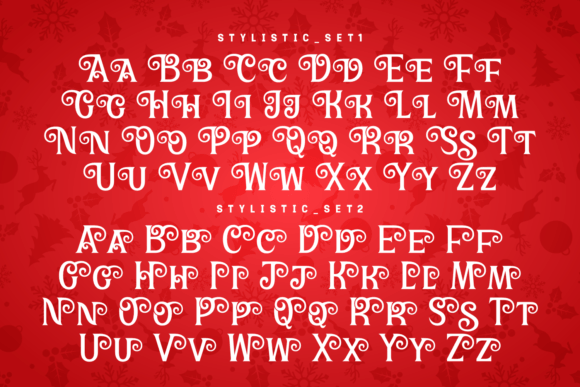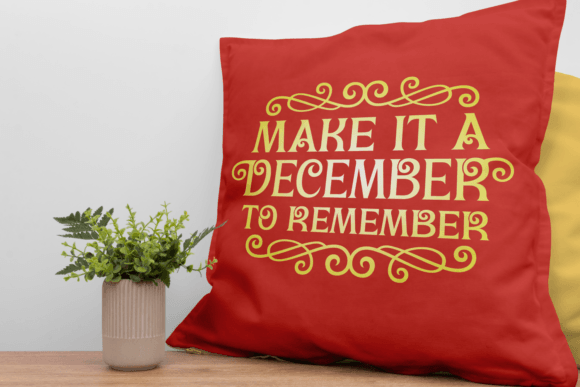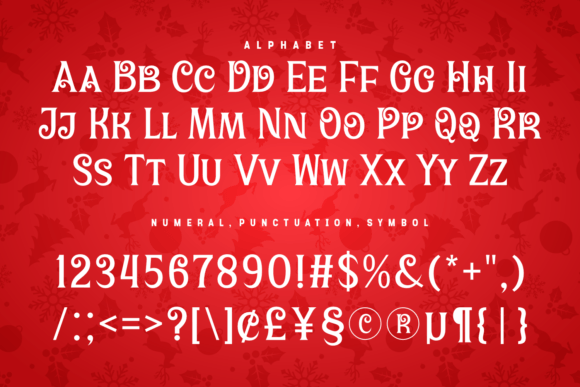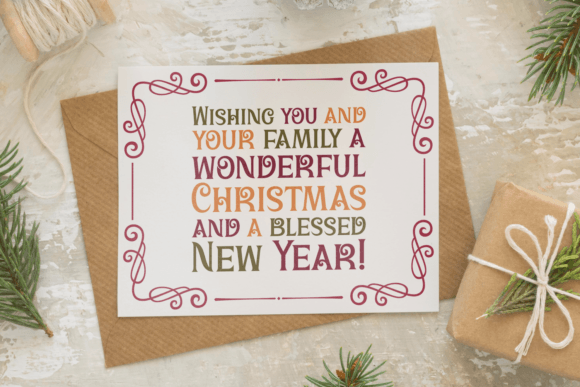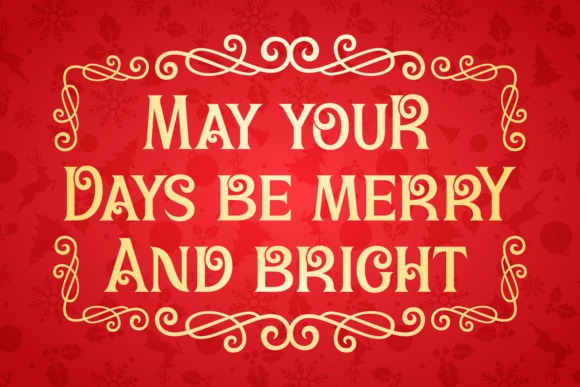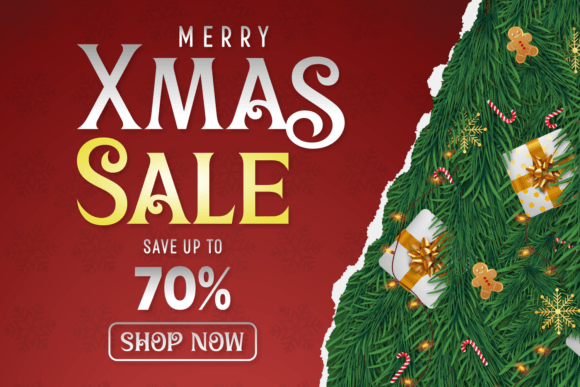
The Magic of Awesome Christmas Font: A Designer’s Delight
It’s that time of the year again – the season of sparkle, shine, and all things merry! As designers, we’re often tasked with creating festive and fun projects that capture the essence of Christmas. But, let’s be real, finding the perfect font can be a challenge. I recall working on a project last year, struggling to find a font that embodied the whimsy and charm of the holiday season. That’s when I stumbled upon the Awesome Christmas font, and it instantly became my go-to for all things Christmas.
A Personal Review: What I Love About Awesome Christmas Font
Awesome Christmas is a curly, festive, and charming display font that’s perfect for wintery-themed designs. Here are a few things that I absolutely love about this font:
- ✨ Festive and Fun: This font is the epitome of Christmas cheer! Its curly and playful design makes it perfect for holiday-themed projects, from Christmas cards to winter wonderland-inspired posters.
- ✅ PUA Encoded: The font is PUA encoded, which means you can access all glyphs and swashes with ease. This makes it incredibly versatile and easy to use.
- 🎉 Warm and Inviting: The font’s warm and inviting design makes it perfect for projects that require a cozy and welcoming feel.
While Awesome Christmas font is a fantastic addition to any design project, there are a few small quirks to be aware of:
- 🤔 Legibility at Small Sizes: As with many script fonts, Awesome Christmas can be a bit tricky to read at small sizes. It’s best used for headlines or titles rather than body text.
- ⚠️ Overuse of Swashes: While the font’s swashes are beautiful, it’s easy to overdo it. Be mindful of how many swashes you use, as too many can make the text difficult to read.
A Practical Guide to Using Awesome Christmas Font
The Backstory Behind Awesome Christmas Font
The story behind Awesome Christmas font is one of passion and creativity. According to the designer, the font was inspired by the magic of the holiday season and a desire to create a font that captured its whimsy and charm. The designer spent countless hours perfecting the font, ensuring that it was both beautiful and functional.
| What is the best way to use Awesome Christmas font? | Awesome Christmas font is best used for headlines, titles, and other display text. It’s perfect for wintery-themed designs, especially when combined with warm colors. |